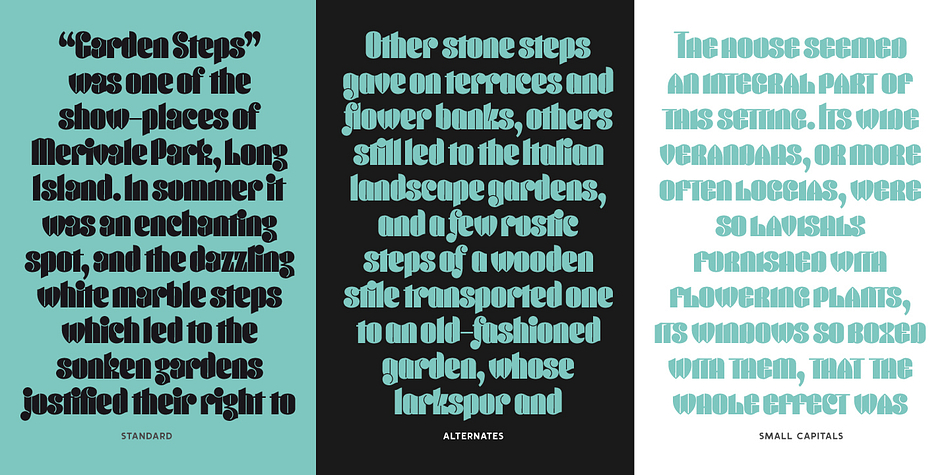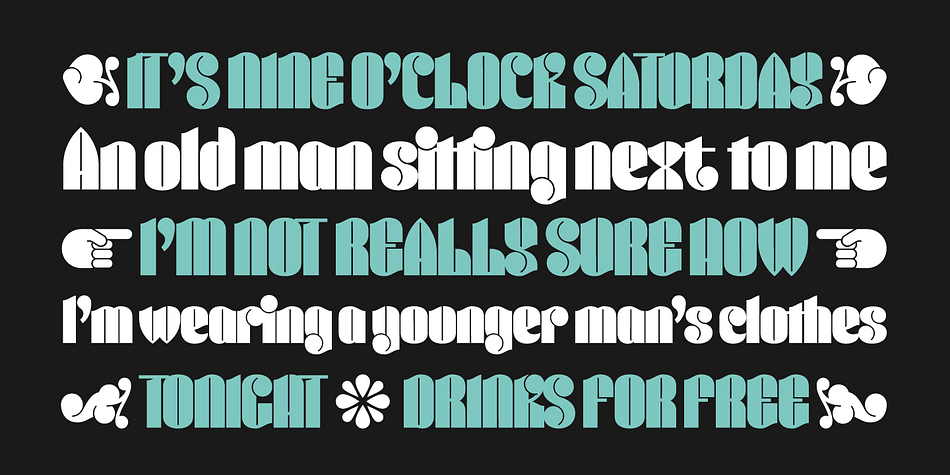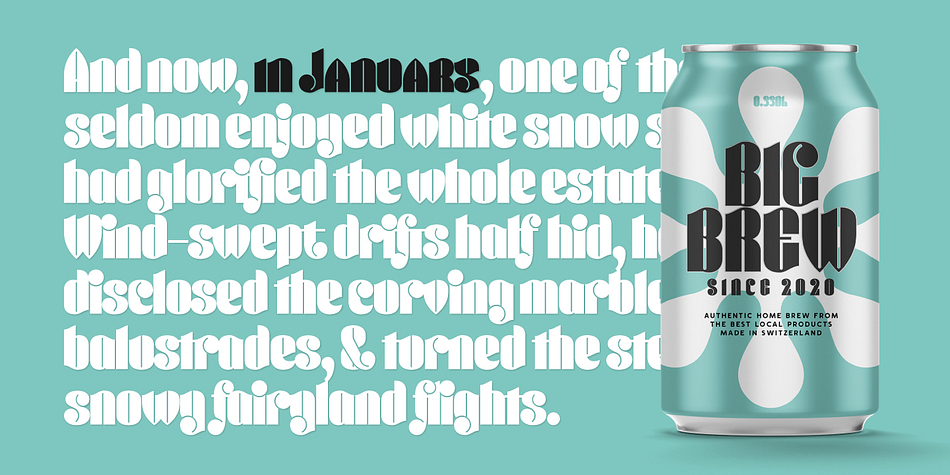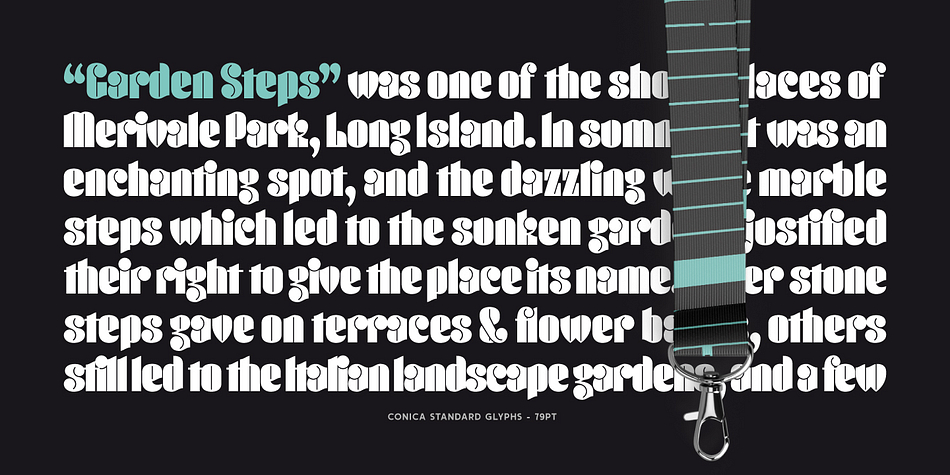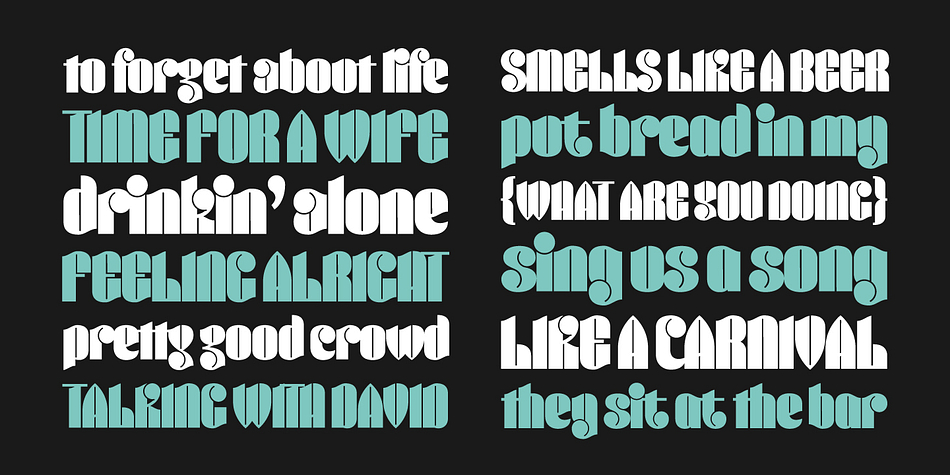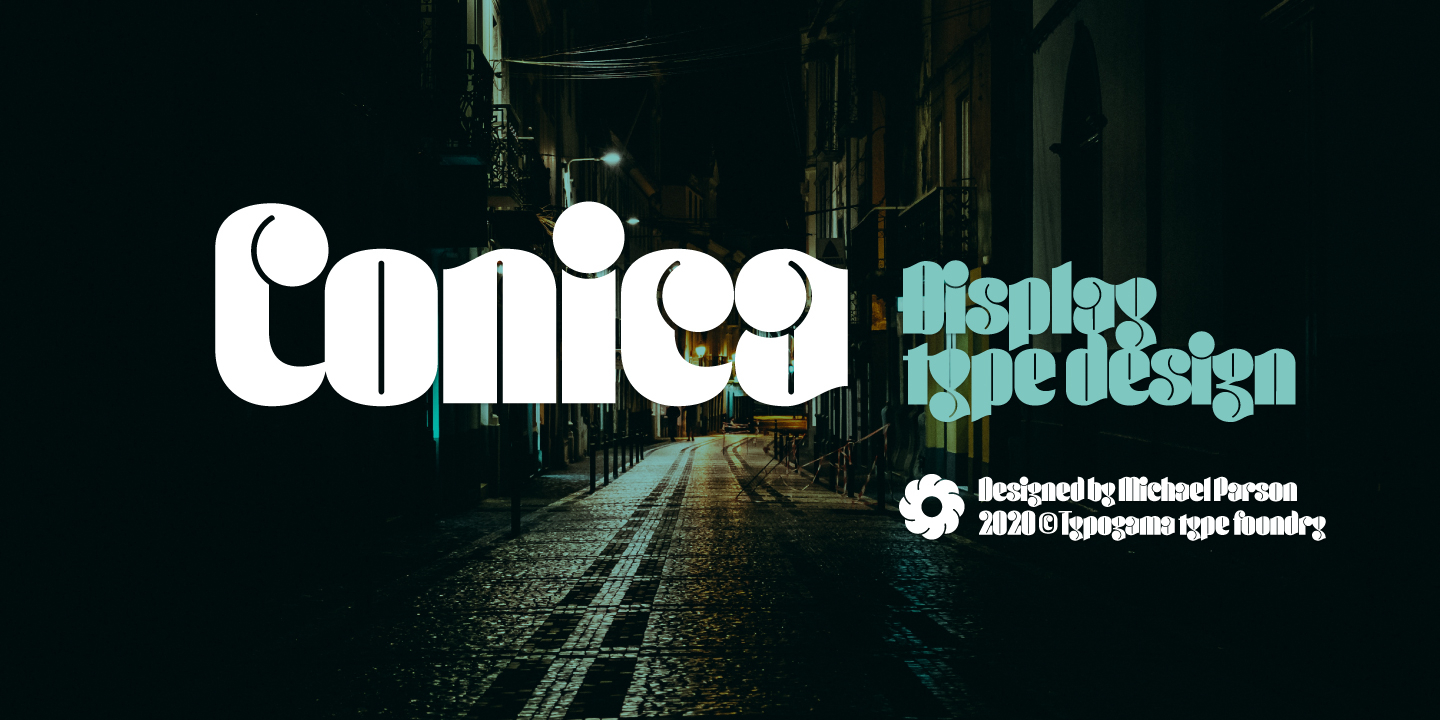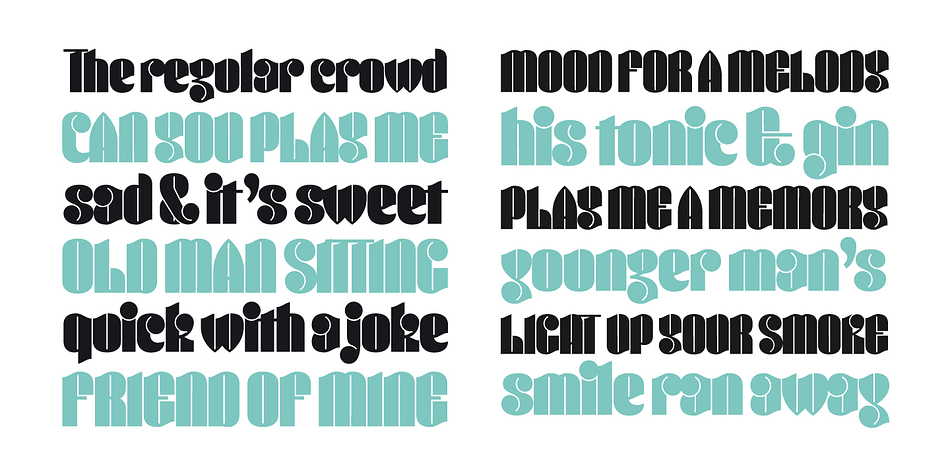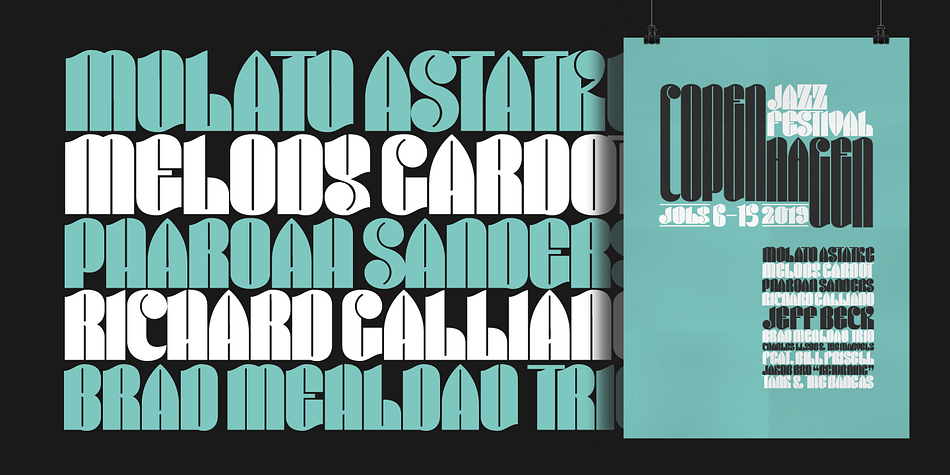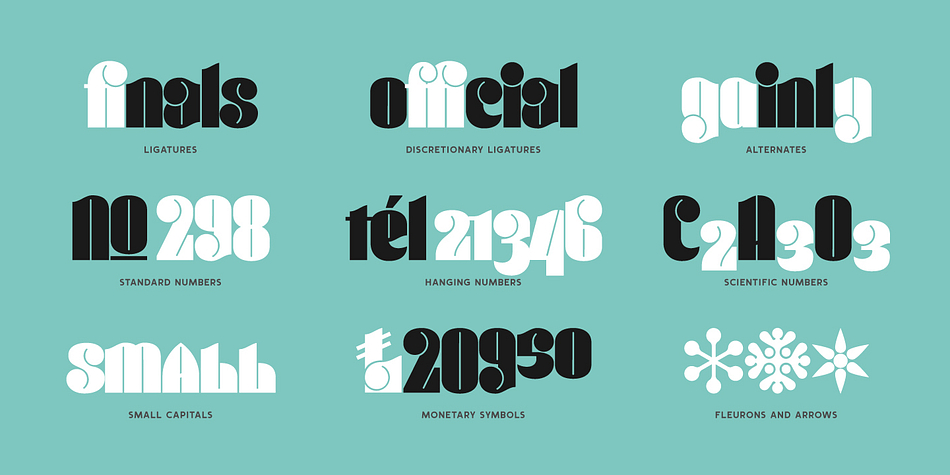
Designed by Michael Parson, Conica is a display and retro font published by Typogama.
Conica is a bold, condensed typeface that aims to grab your attention. By playing with heavy, dark shapes and small counters, this single weight typeface explores the contrast between defined shapes and gentle curves to produce a surprising headline font. It equally includes a range of Opentype features, with a set of small capitals, stylistic alternates and ligatures, users can choose which forms best suit their needs. Conica includes an extended Latin glyph set covering most Latin based languages.